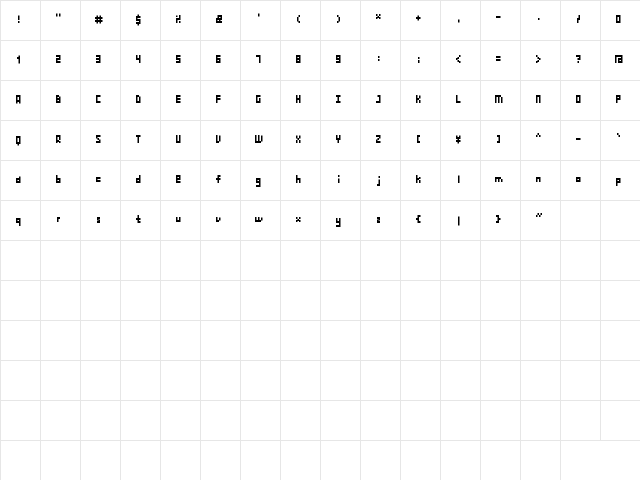
Complete HM Tiny Bit Regular glyph index. Displaying only characters natively supported by HM Tiny Bit Regular font.
HM Tiny Bit is a composed and adaptable typeface that performs quietly and consistently across a wide range of design contexts.